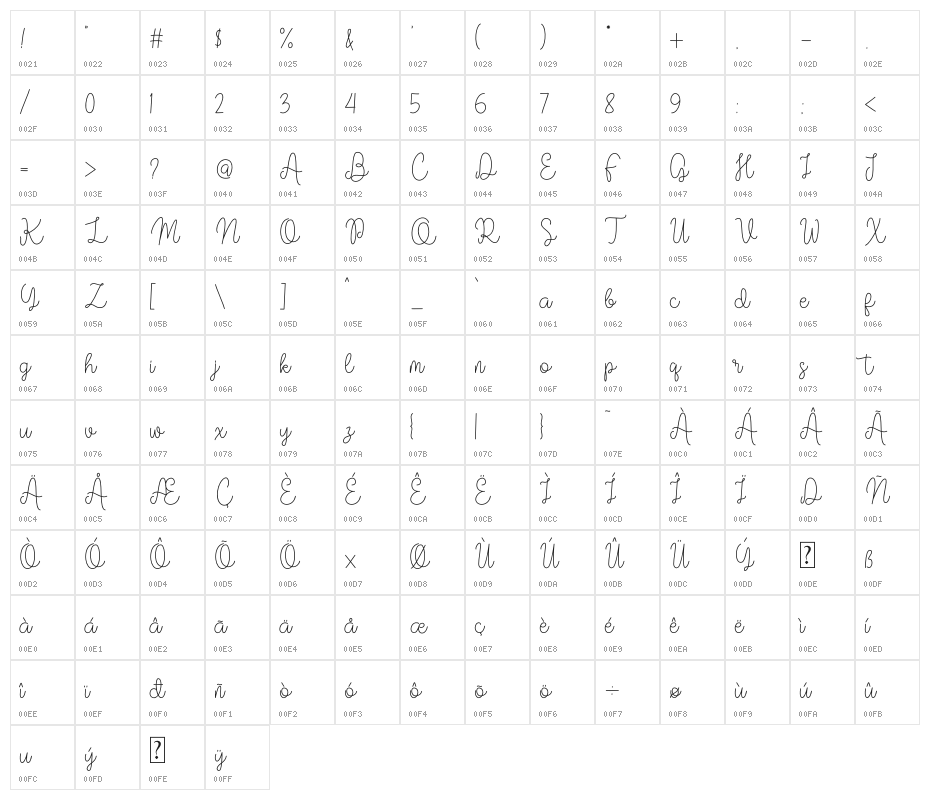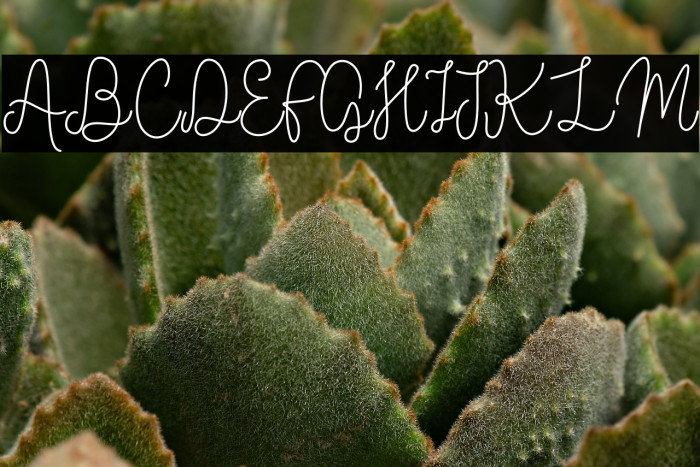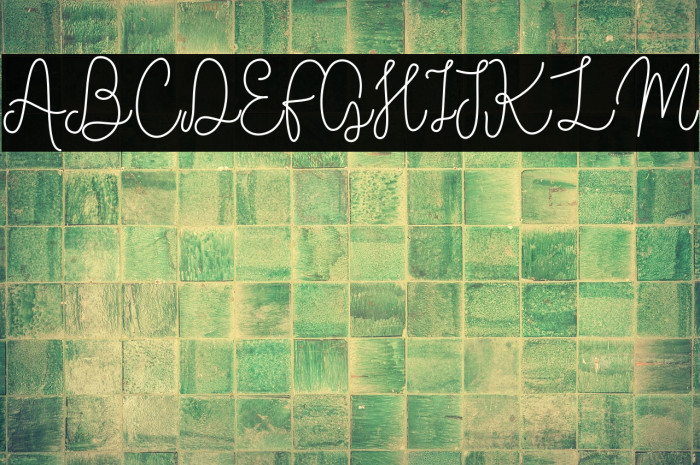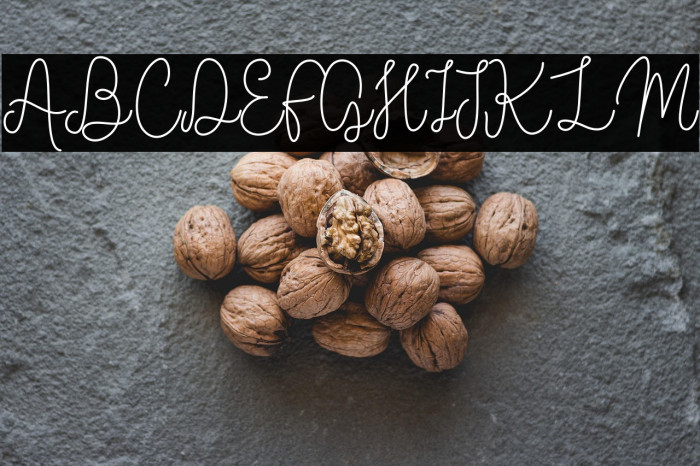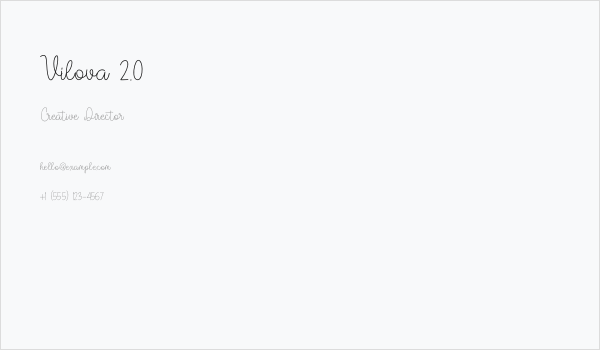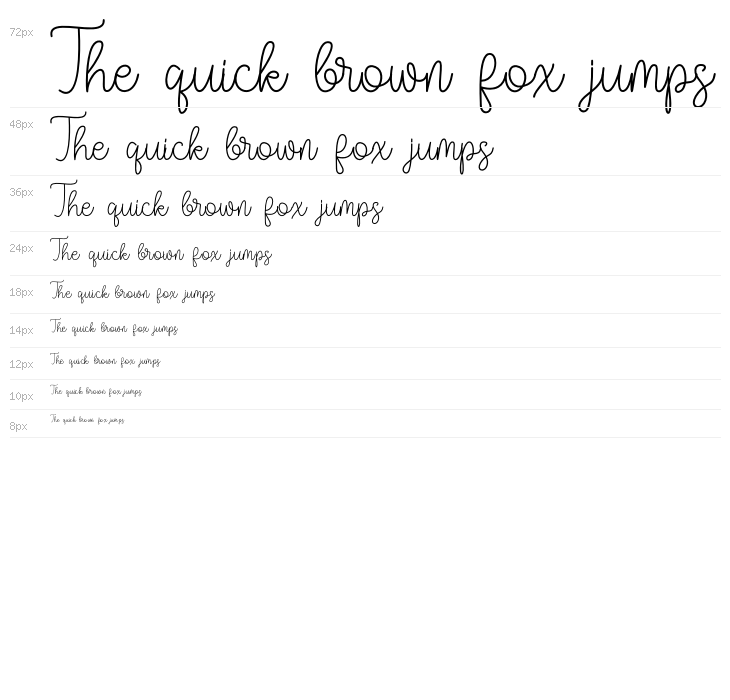
Vilova 2.0 Font
Vilova 2.0 Description
This font features a delicate and flowing script style, characterized by its elegant and continuous strokes that mimic the fluidity of handwriting. The uppercase letters are slightly more ornate, with loops and curves that add a touch of sophistication. The lowercase letters maintain a consistent flow, enhancing readability while preserving the script's artistic flair. Numbers and special characters are crafted with the same attention to detail, ensuring a cohesive look across all elements. This font is ideal for projects that require a personal and elegant touch, such as invitations, greeting cards, and branding materials.
| Overall Style | Elegant, Handwritten |
| Use Case | Headlines, Invitations, Greeting cards |
| Proposed Projects | Ideal for wedding invitations, greeting cards, personal branding, and elegant stationery. |